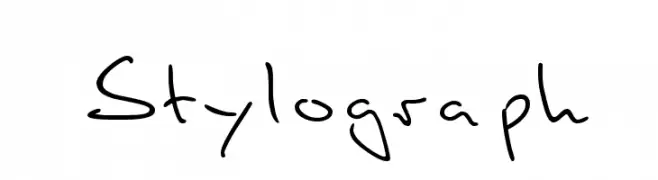
( recklessweeknights.tumblr.com )
A playful, handwritten font with rounded, uniform strokes.
A whimsical handwritten script with tall, narrow, rounded letters.
( Fonts by Sarif Letter )
( Fonts by Stefani Letter )
A playful handwritten font with fluid, dynamic strokes and a casual style.
( Fonts by Letterara )
Handwritten monoline script with a festive feel.
( Fonts by Md Shohail Bhuian )
Playful handwritten font with tall, narrow letters.
( Fonts by Letterafa Studio )
Playful handwritten font with bold, rounded characters.
( Fonts by Inermedia Studio )
Playful handwritten font with tall, narrow letters.
( Fonts by Scratchones )
Playful handwritten font with rounded edges.